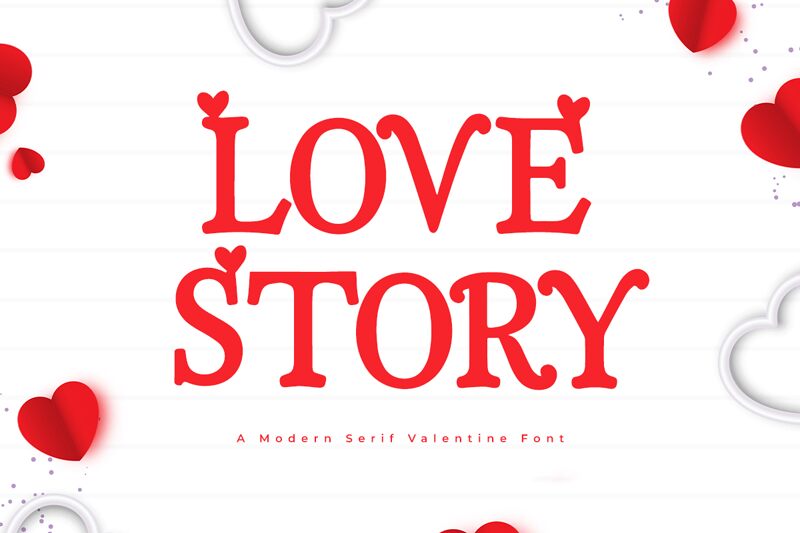
Love Story font by Kong Font is a free romantic holiday typeface that turns every word into a little love note. Rounded, inky letterforms feel hand-touched, while tiny heart-shaped accents sprouting from the tops add a playful, storybook charm. It’s bold enough to stand out on its own, yet soft around the edges so your messages feel warm, not shouty.
Using Love Story, you can dress up Valentine’s cards, wedding invitations, engagement announcements, love coupons, gift tags, and sweet social media graphics with an instantly festive mood. This free font shines in big, eye-catching titles; pair it with a clean sans serif for the smaller details to keep your layouts romantic but readable.